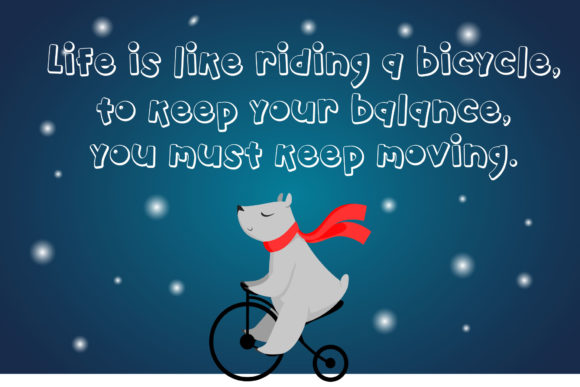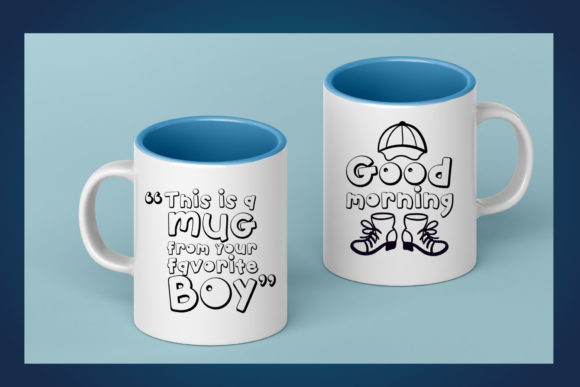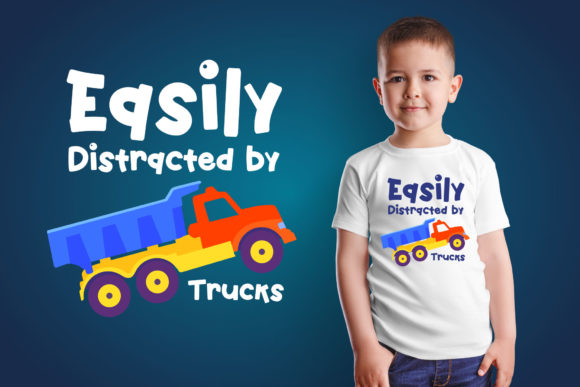
The Joy of Frozen Gnome Font: A Designer’s New Best Friend
I’ll never forget the time I was working on a children’s book project, and my client asked me to create a title page that would make kids’ eyes sparkle. I spent hours scouring font libraries, but nothing seemed quite right – until I stumbled upon Frozen Gnome. This cool and uniquely designed display font has since become a staple in my design toolkit, and I’m excited to share its awesomeness with you! 🎉
An Honest Review of Frozen Gnome
- ✅ Unique and playful design that’s perfect for cartoon-related designs, kids’ games, and more
- ✅ Highly legible, even at larger font sizes
- ✅ Extensive OpenType features, including glyphs and stylistic alternates
- ✅ Works beautifully for titles, brand names, book covers, and posters
- ⚠️ May not be the best choice for body text or smaller font sizes
- ⚠️ Some users may find the font a bit too playful or childish for certain projects
The Backstory of Frozen Gnome
According to the font’s creators, Frozen Gnome was inspired by the magic of childhood imagination. They wanted to craft a font that would evoke a sense of wonder and playfulness, perfect for designers working on projects for kids or anyone looking to add a touch of whimsy to their designs. Whether or not that’s the actual story, one thing’s for sure – Frozen Gnome has captured the hearts of designers worldwide! ❤️
Q: Is Frozen Gnome suitable for body text?
A: While Frozen Gnome is an amazing font, it’s primarily designed for display purposes. It might not be the best choice for body text or smaller font sizes, as it can become difficult to read.
Q: Does Frozen Gnome support OpenType features?
A: Absolutely! Frozen Gnome comes with a range of OpenType features, including glyphs and stylistic alternates, which can add an extra layer of creativity to your designs.